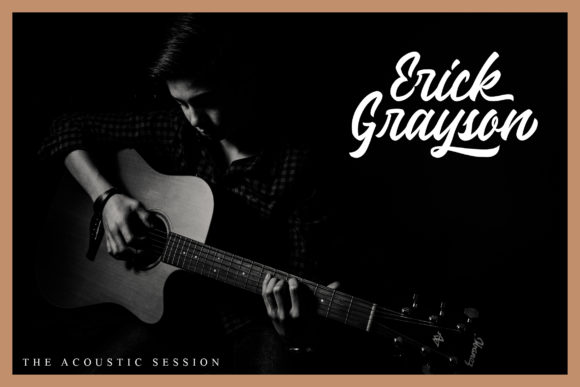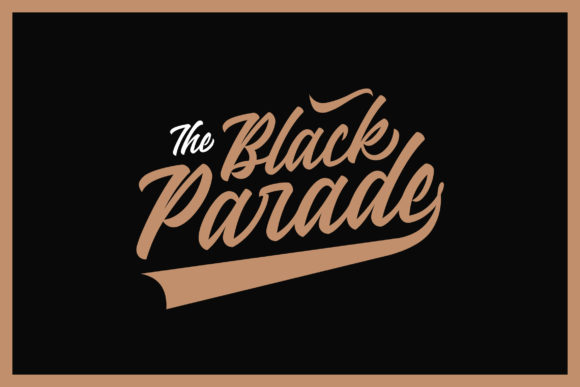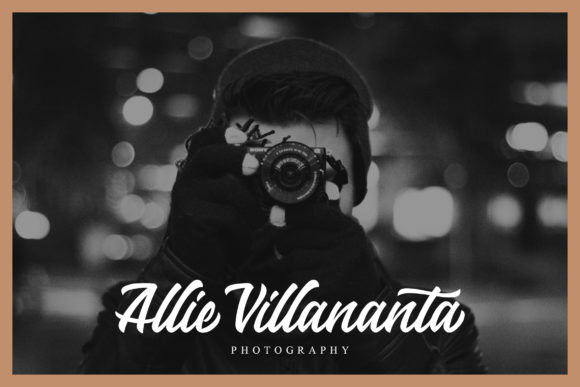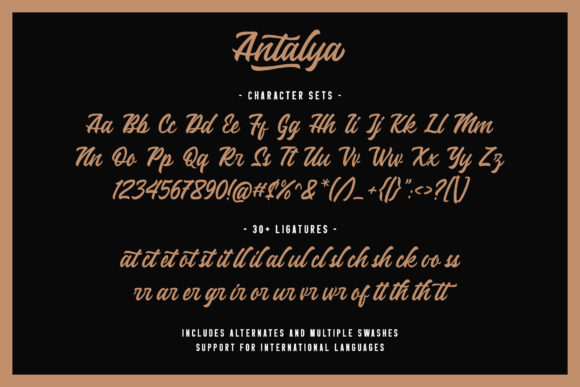
Discover the Elegance of Antalya Font: Elevate Your Design Projects
In the world of typography, fonts play a crucial role in conveying messages, evoking emotions, and adding aesthetic value to design projects. Among the myriad of fonts available, Antalya Font stands out for its classic inspiration and unique style, making it a versatile choice for various design applications. In this article, we’ll delve into the characteristics, uses, and benefits of Antalya Font, exploring how it can enhance your design projects.
What is Antalya Font?
Antalya Font is a script font that draws inspiration from classic typography, yet brings its own distinctive flair to the table. This elegant font is designed to add a touch of sophistication and charm to any design project. Its unique style is characterized by flowing lines, intricate details, and a sense of luxury, making it perfect for designs that require a high level of elegance.
Key Features of Antalya Font
- Classic Inspiration with a Modern Twist: Antalya Font is rooted in traditional typography but has been crafted to meet the demands of modern design. This blend of old and new makes it a versatile choice for a wide range of projects.
- Versatility in Size and Application: This font is highly adaptable, performing exceptionally well in headlines of all sizes, as well as in blocks of text that vary in length and complexity.
- Suitable for Various Media: Whether you’re working on a website, print materials, animations, or any other form of visual communication, Antalya Font is designed to look spectacular across different mediums.
Best Use Cases for Antalya Font
Given its elegant and versatile nature, Antalya Font can be used in a variety of design projects. Here are some of the best use cases:
- Headlines and Titles: The font’s unique style and classic inspiration make it perfect for headlines and titles, adding an immediate touch of elegance and sophistication.
- Branding and Logos: For brands looking to convey luxury, tradition, or a sense of timelessness, Antalya Font can be a valuable asset in creating logos and brand identities.
- Web Design: Websites aiming for a sophisticated, high-end look can benefit greatly from using Antalya Font for headings, quotes, and other highlighted text.
- Print Design: From luxury brochures and high-end magazines to elegant stationery and wedding invitations, Antalya Font can elevate any print design project.
- Motion Graphics and Animations: The font’s clarity and elegance make it suitable for use in motion graphics, adding a professional and refined touch to video content.
Why Choose Antalya Font?
Choosing Antalya Font for your design projects comes with several advantages:
- Unique Aesthetic: Antalya offers a distinctive look that can set your designs apart from the more commonly used fonts.
- High Versatility: Its adaptability to different sizes, styles, and media makes it a practical choice for a wide range of applications.
- Elegance and Sophistication: The font adds a level of luxury and refinement to designs, making it ideal for projects where a high-end feel is desired.
Antalya Font is a remarkable script font that brings a blend of classic inspiration and unique style to the world of typography. Its versatility, elegance, and adaptability make it an excellent choice for designers and crafters looking to add a touch of sophistication to their projects. Whether you’re working on web design, print materials, or motion graphics, Antalya Font is sure to enhance your creations and leave a lasting impression on your audience.
With its broad range of applications and aesthetic appeal, Antalya Font is not just a typeface but a design element that can elevate your work to new heights. Explore the possibilities of Antalya Font in your next design project and experience the difference it can make.